Ram Ray, Param, and my downloadable Indian street fonts…
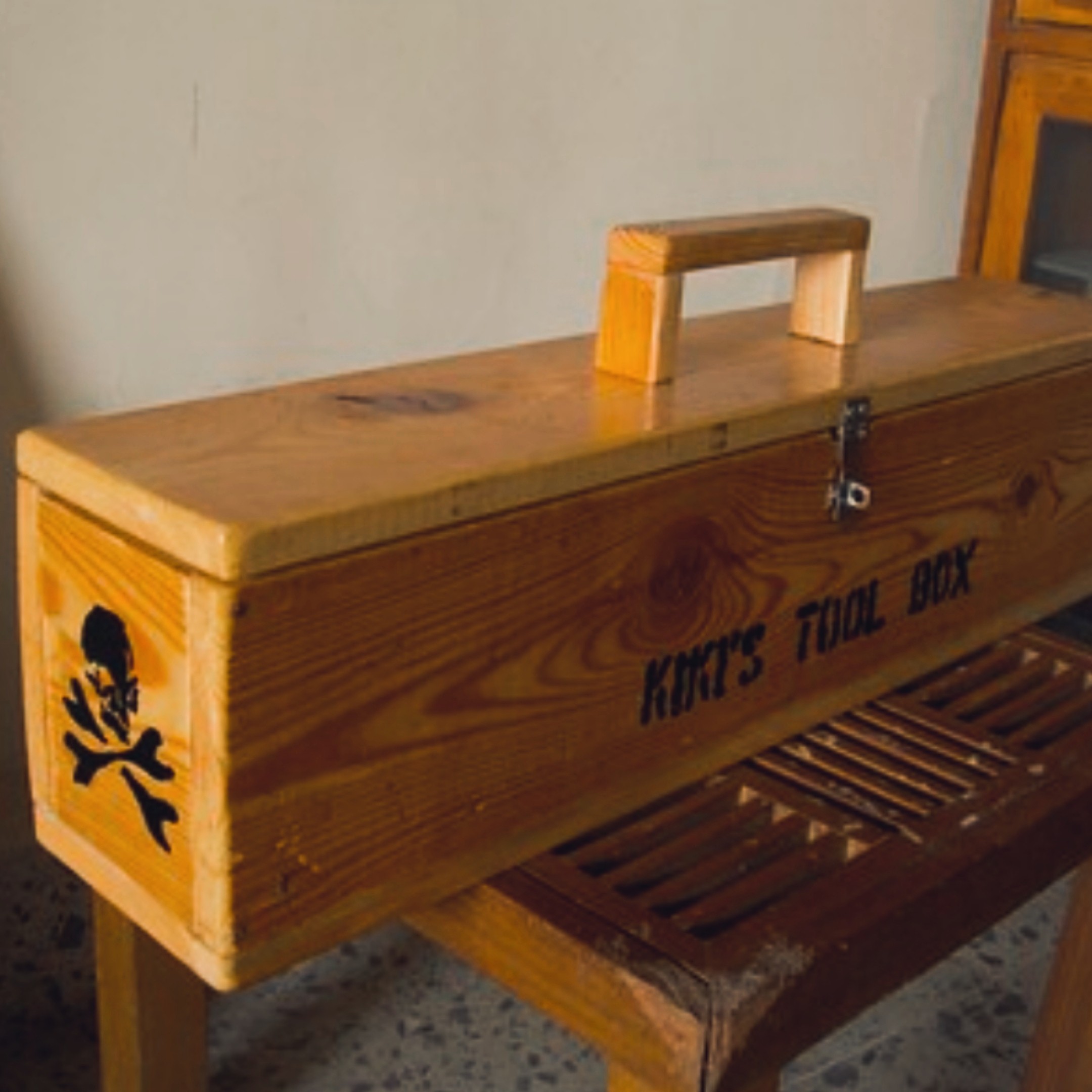
Very soon, I needed a tool box. So I made this abomination. Not proud of it at all, but was very fond of it nonetheless. The hinge-work was good though, as it taught me how to think out my hinges. The handle-work COULD be argued into being called good too, in that it taught me how NOT to do handles 🙄
The story here is not about the box, though. It’s about the “KIKI’S TOOL BOX” writing on its side. I could have just written it in black paint, but at the time, I was deeply into an interest of mine of making fonts the proper way.
My interest in fonts was woken and fuelled by my the two biggest supporters of my varied interests at the time, Ram Ray and Paramvir Singh. Both were themselves particularly interested in and knowledgeable about fonts. Param still is (God bless him), but Mr Ray is no more (a huge loss to the Advertising Industry as well as to the thinking-with-their-hearts intellectual crowd, not to mention being a mammoth personal loss). I learned a lot from both of them about the geometry, the art, and the rules of fonts. How each curve and each stalk length of each alphabet or symbol in a font family belonged to that family for the very reason that they conformed to the geometry and art rules of that family. In the days of no social media, my email boxes used to be flooded with font design forwards from both of them—anything they found interesting or had to share of their own. So when I started exploring making fonts properly by constructing each in vector software, painfully, laboriously, and mathematically precisely, their encouragement knew no limit. (Another little story came to mind wrt the above. Clarion [Bates by then] office, where I used to once work, had framed along the walls of the staircase an alphabet set hand-drawn and designed by Satyajit Ray [from when he used to work there]. Mr Ray had suggested I fontilise it. It was a secret project of our own, and he intended to make it official once it was done. After I made it, and it had passed his approval, and we had christened it RR (“Ray Roman”), it was too late by a day. He gave me the news that someone else had already done it. We were devastated. I decided not to share the font publicly thereafter, but to keep it under his care only.)
At the time Param had started a website called Desicreative (he still continues to run it with passion. You can check it out here), and he suggested we add a section called Font Fridays to it, where i would contribute a downloadable and installable font I had created every Friday. This was exciting but we needed an enduring theme to hold it together. So the thought came up that i make it on the fast-disappearing hand-painted fonts populating the roads and streets around us. The very-Indian ones… like the HORN OK PLEASE paintings behind trucks, the STD ISD letters painted onto the glass of phone booths, etc. It was the “etc.” part that needed work next.
Mr Ray was immensely kicked with the idea, and then both he and Param (we were all in different cities by then) started sending me photographs of whatever such “etc.” incidents they could capture around them in their daily lives. I started collecting these photographs, added my own to them, and started work on creating them, converting the designs into font files, and making them installable. The greatest challenge in each of these exercises lay in the fact that each photograph gave me only a few letters of the alphabet. The rest had to be created after studying the existing ones, finding the invisible rules, and interpolating the rest. Crazy fun. Crazy hard work. After creation, I sent it to the two guys to test, take apart, criticise, suggest, or give go-aheads on. Yes, all three of us had a lot of fun. And every Friday, it was up on Desicreative to install.
To come back to the tool box, I thought – why not put one of my own creations to use? So I downloaded one of them, installed it, typed out KIKI’S TOOL BOX, increased the font size, took prints, created the stencil, and stencilled it on to the box.